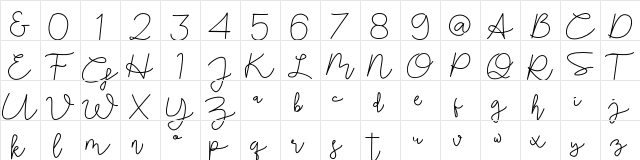
Classico Regular
Design Context for Classico Typeface
Classico wears its vintage influences proudly, with letterforms that recall mid-century signage, classic packaging, and nostalgia-driven design.
Font Pairing: Combine Classico with a simple slab or neutral sans — period-accurate companions reinforce the vintage feel without competing for attention.
Pro Tip: Lean into Classico's period character by pairing it with aged paper textures, muted colour palettes, and vintage illustration styles.